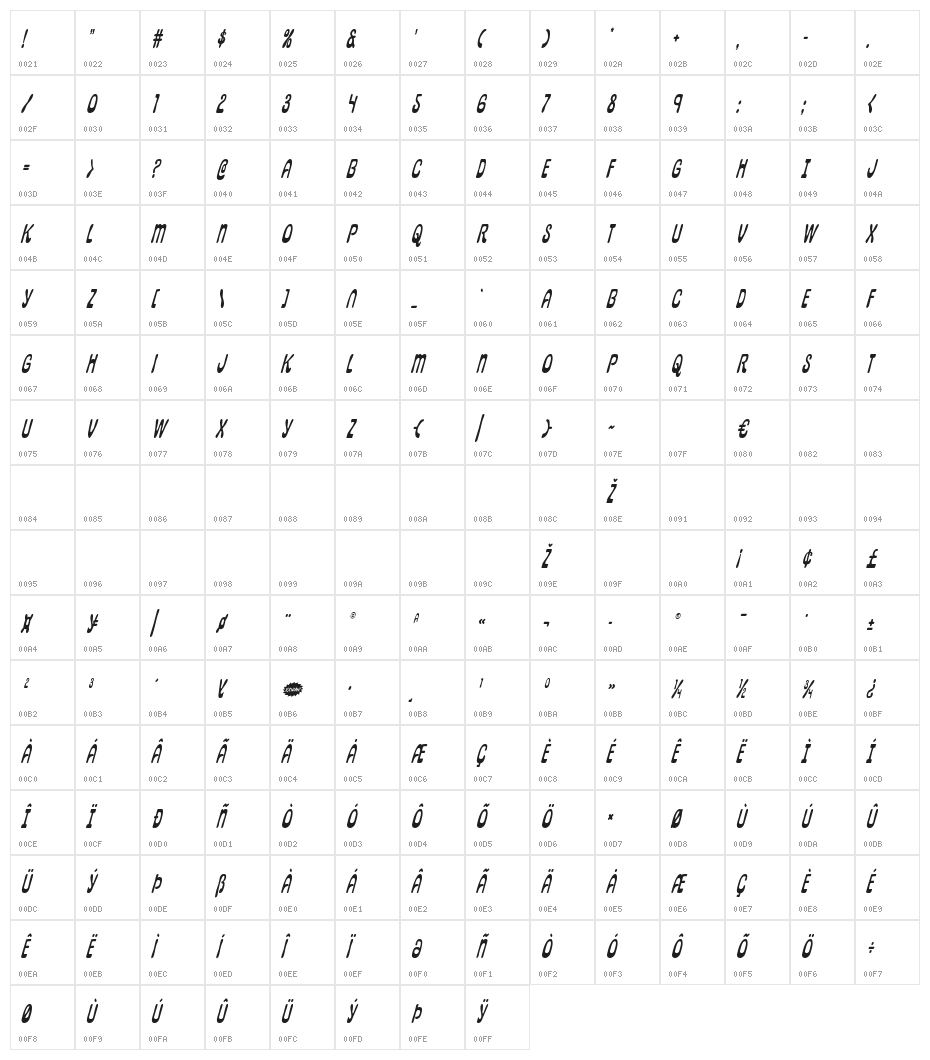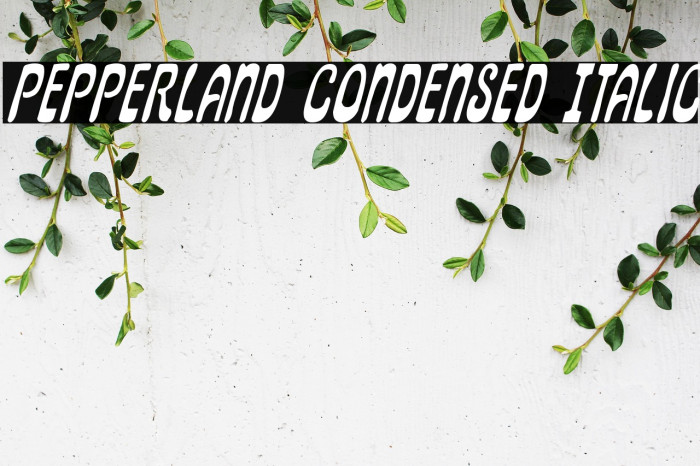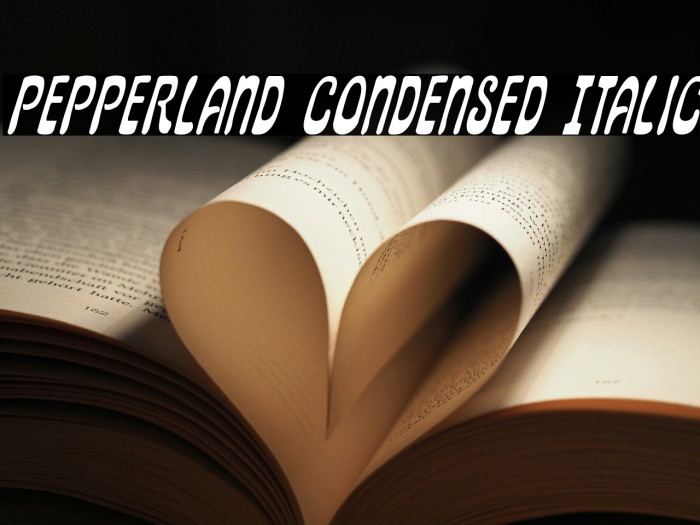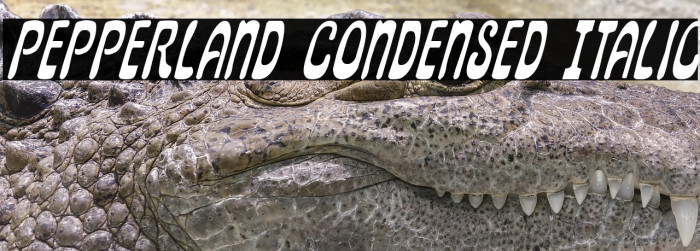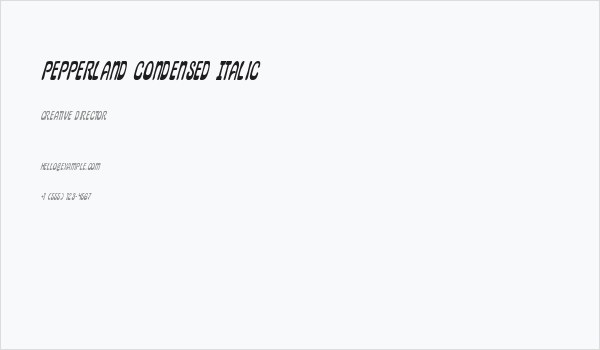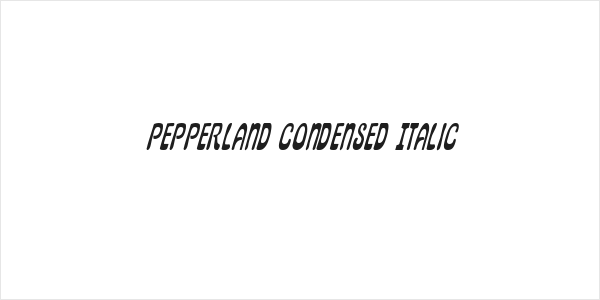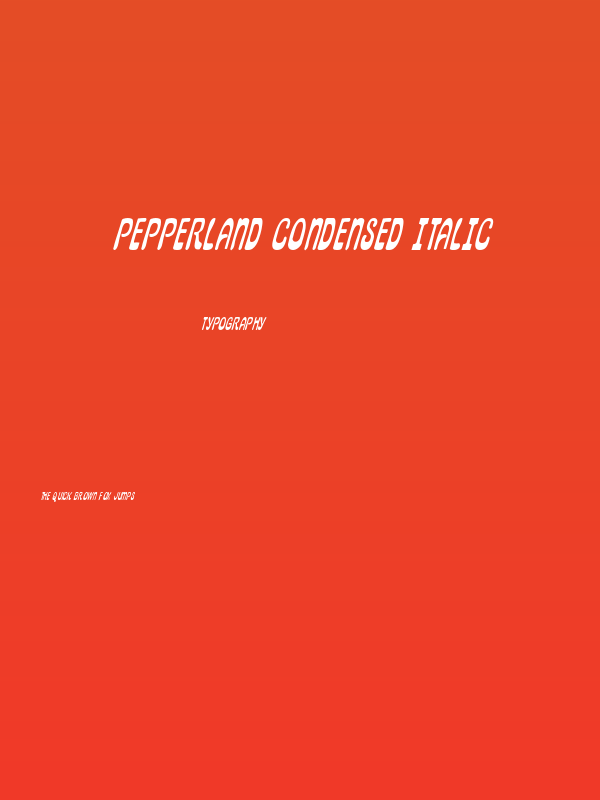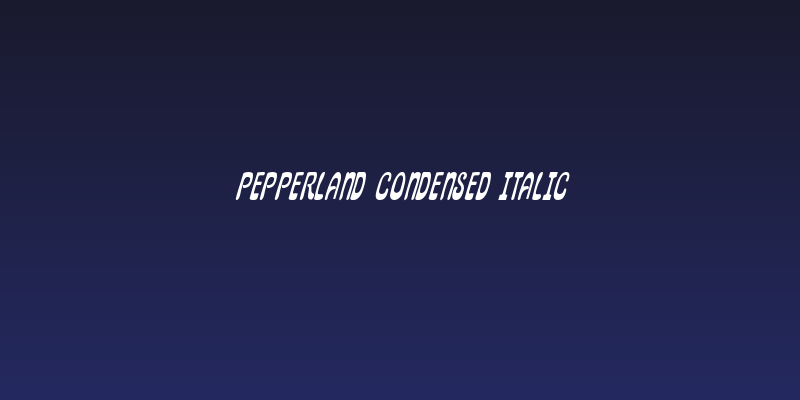
Pepperland Condensed Italic Font
Pepperland Condensed Italic Description
This font features a condensed and italicized style, giving it a dynamic and energetic appearance. The letters are slightly slanted, enhancing the sense of movement and flow. The character shapes are bold and rounded, with a playful yet structured form. The uppercase and lowercase letters maintain a consistent style, while the numbers and special characters complement the overall design. This font is suitable for projects that require a modern and lively touch, making it ideal for creative and expressive designs.
| Proposed Projects | Ideal for posters, branding, and creative projects that require a lively and modern touch. |